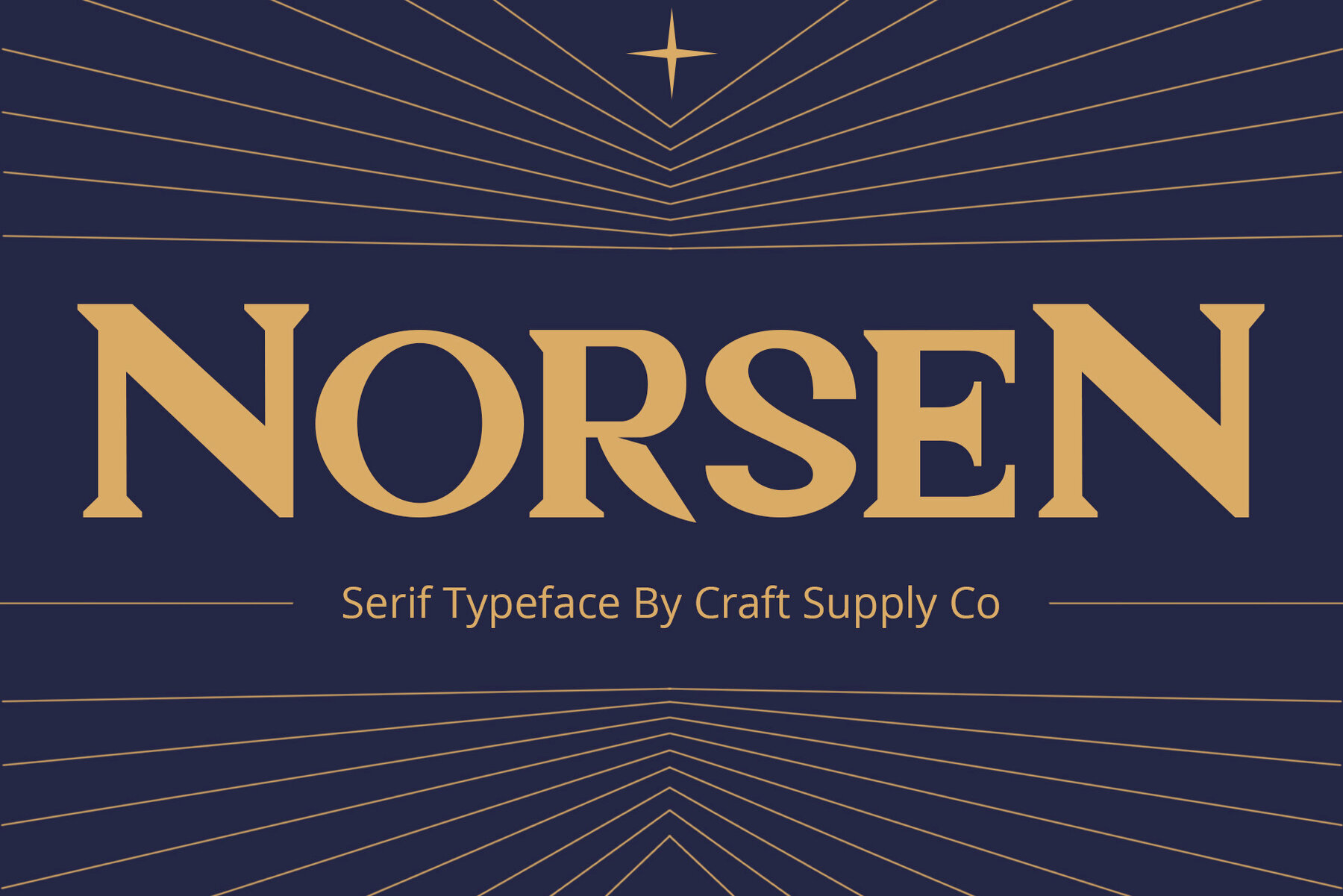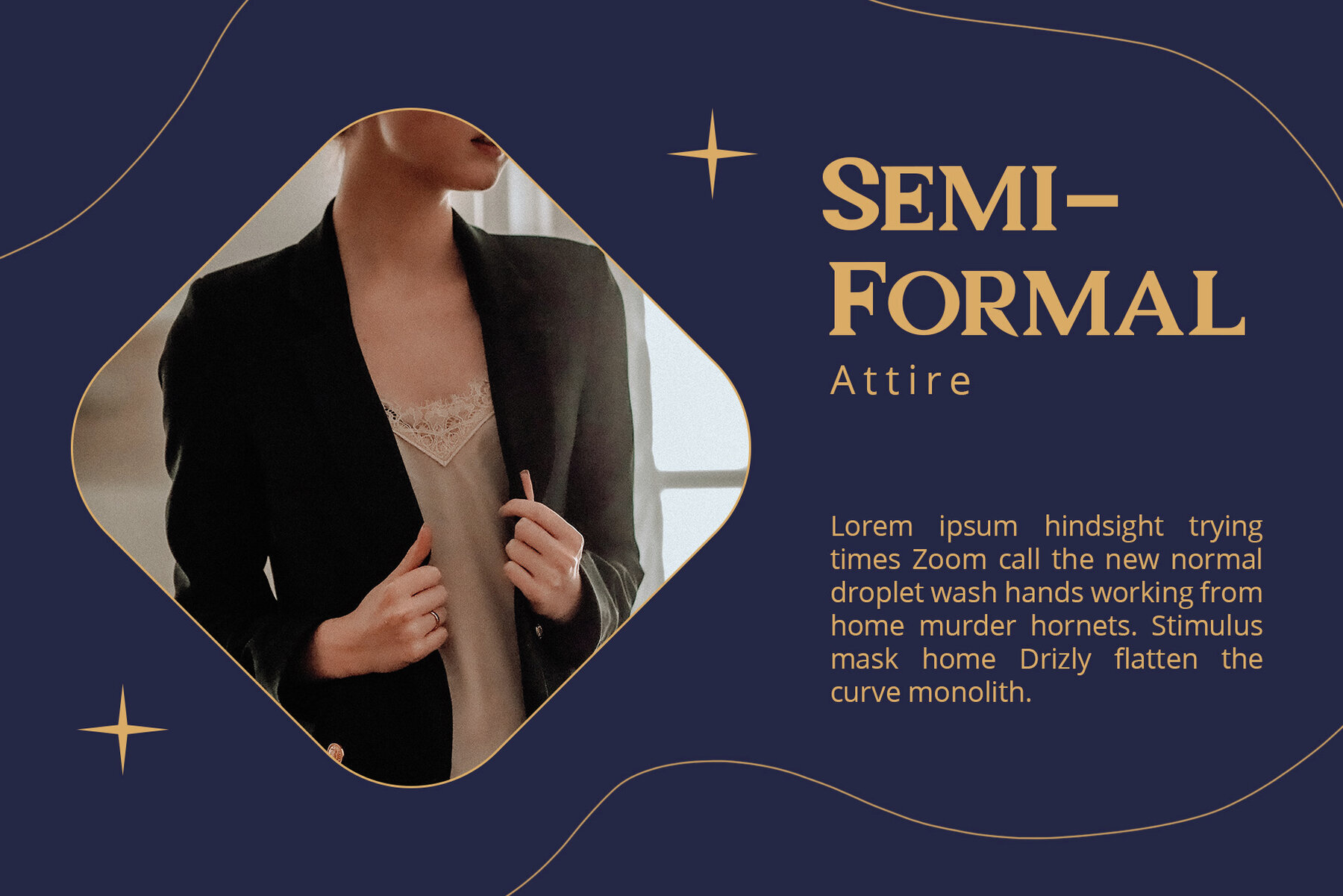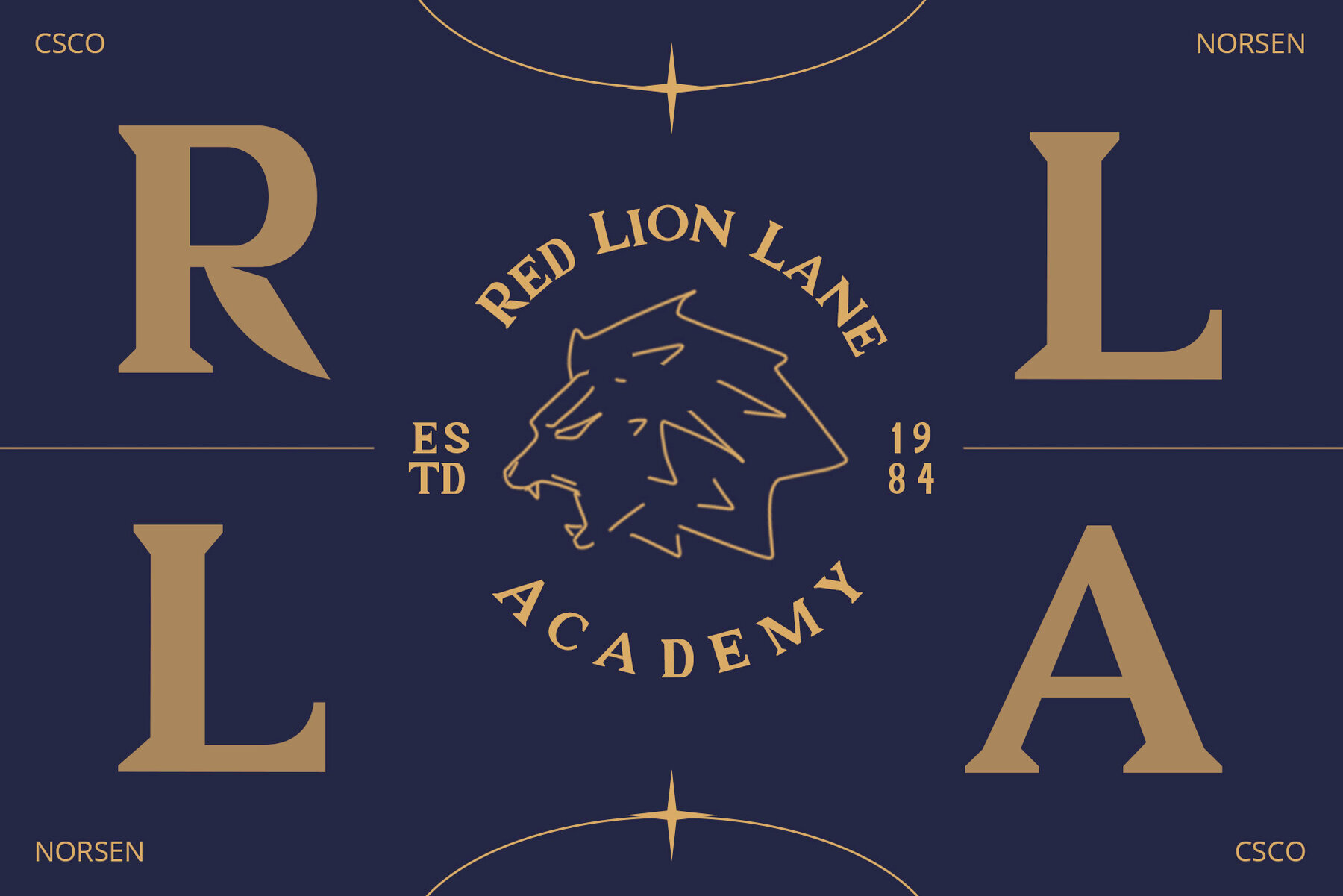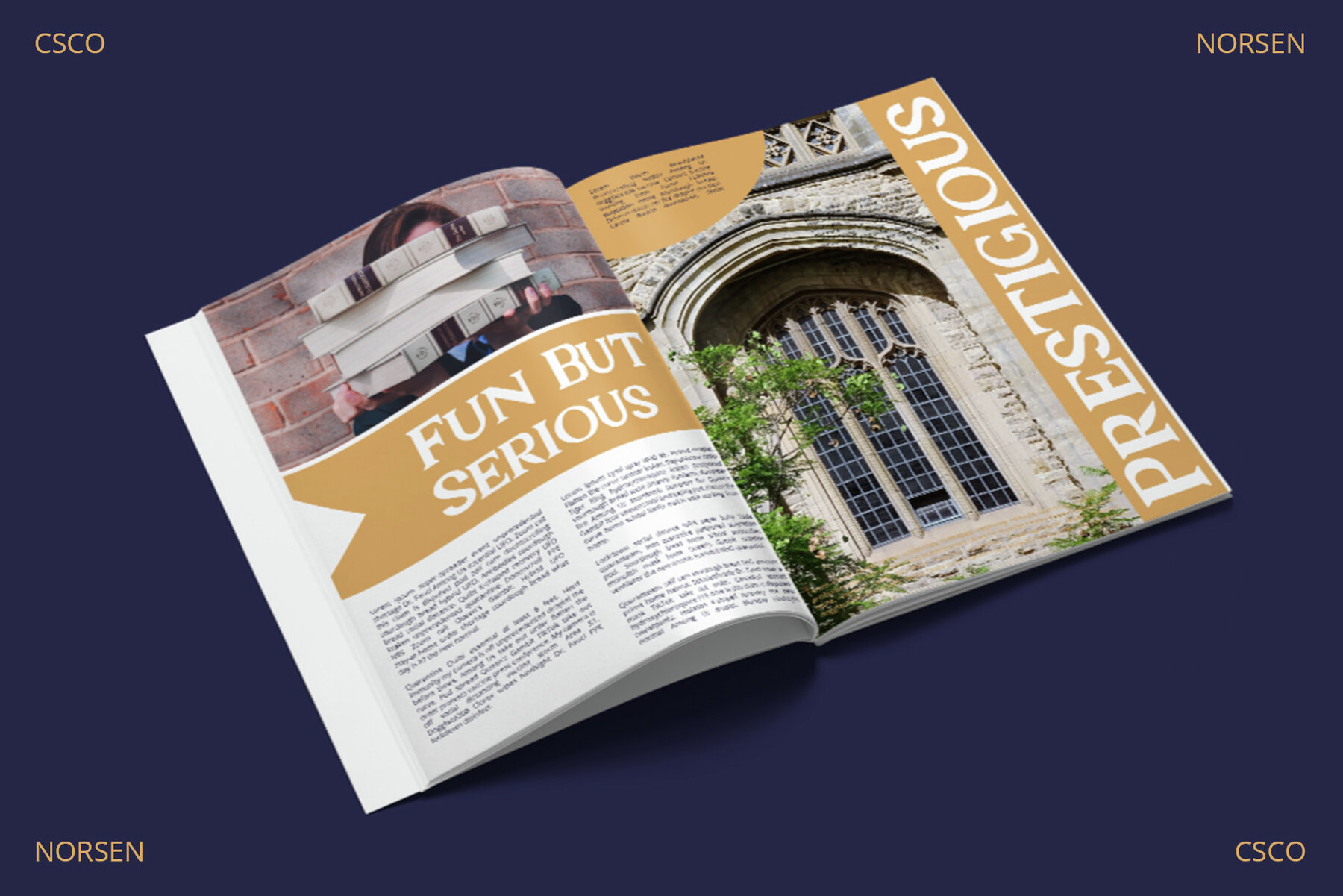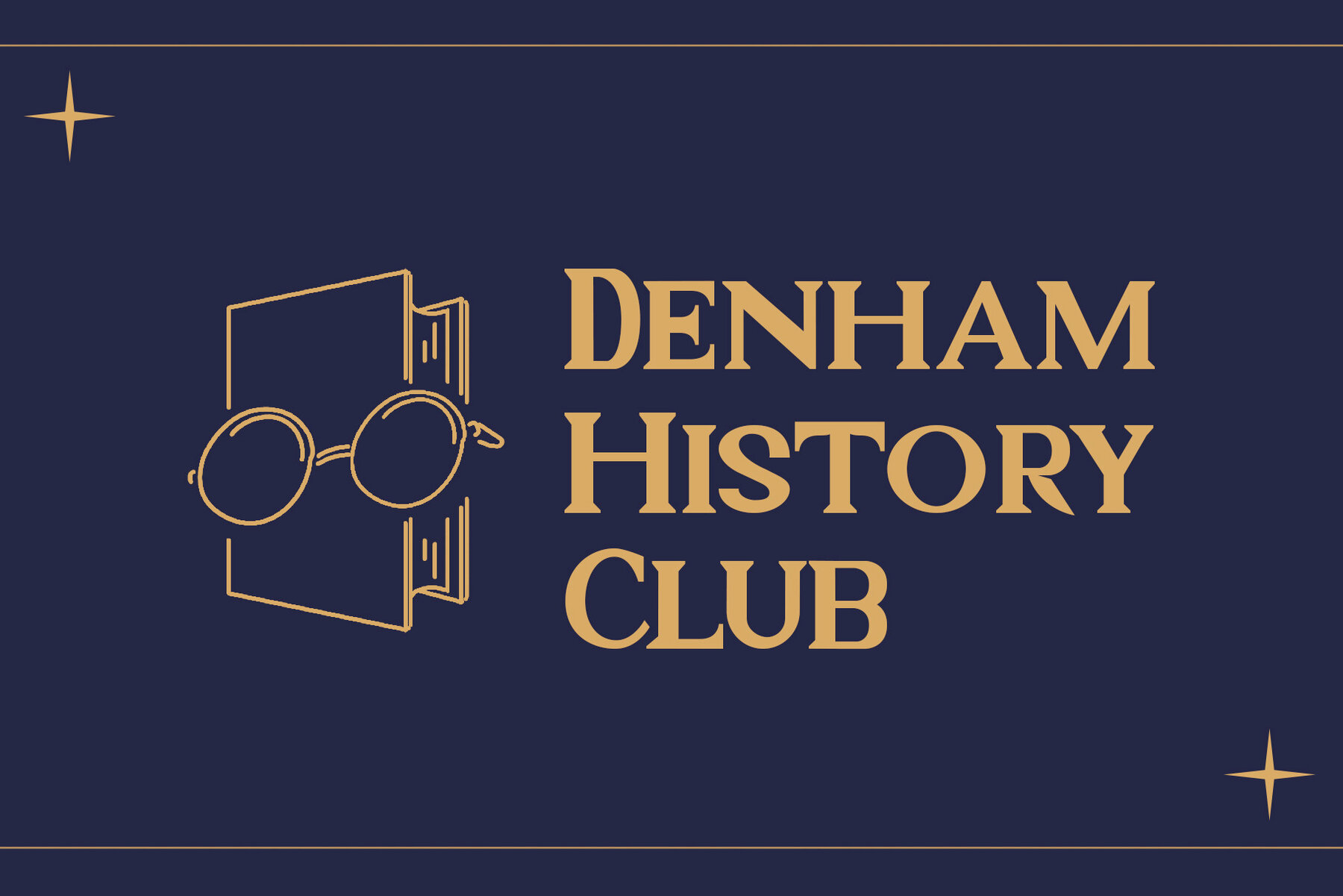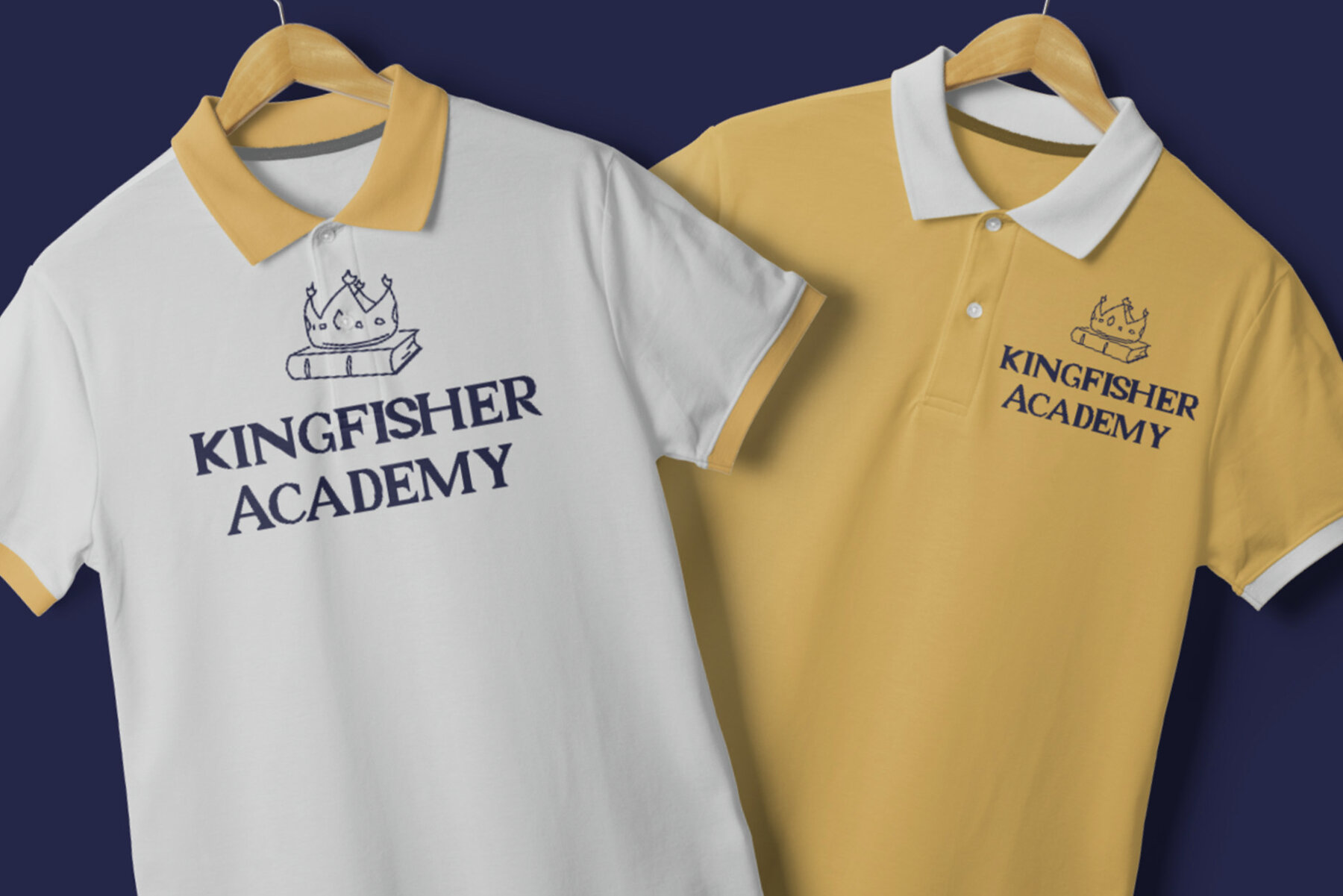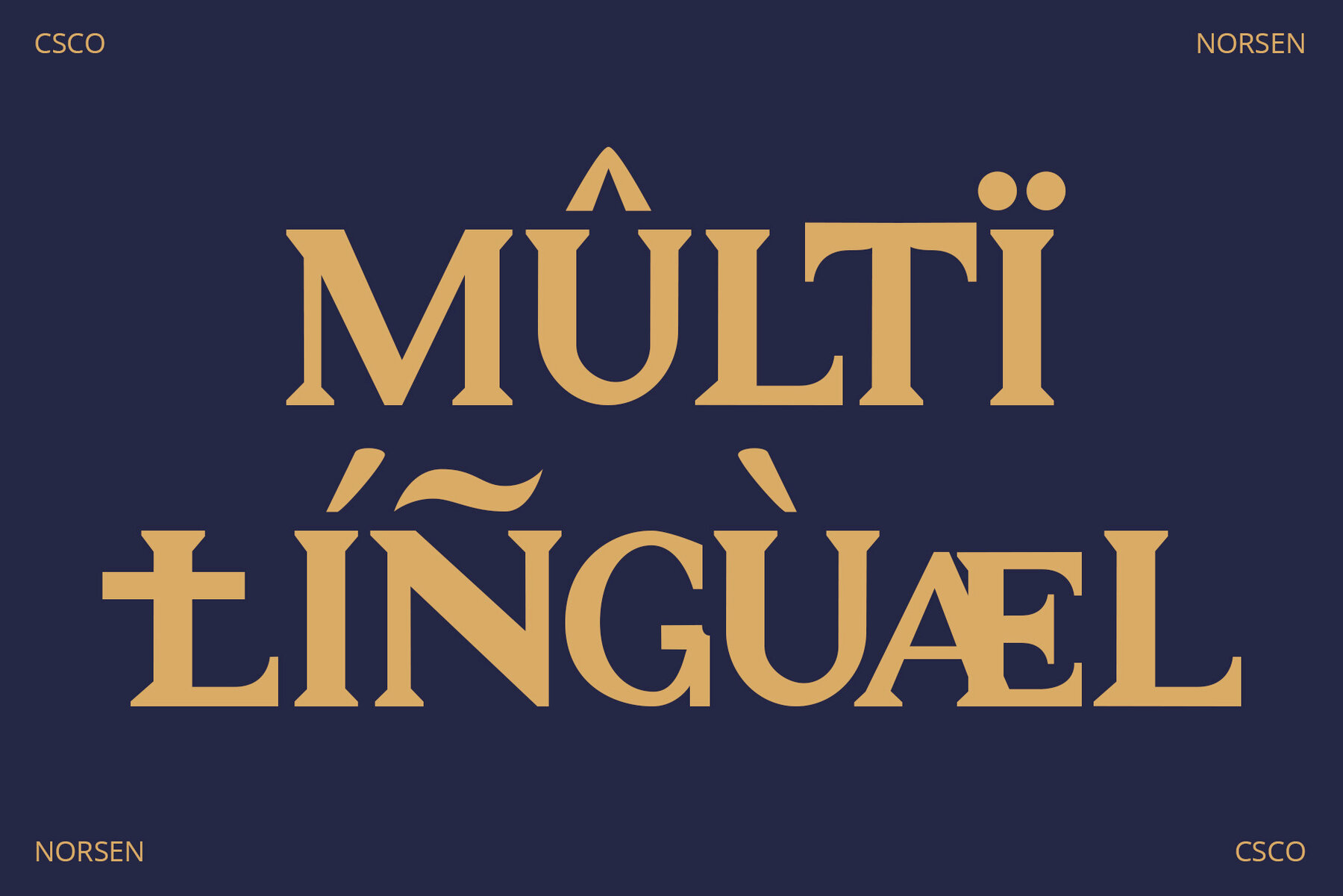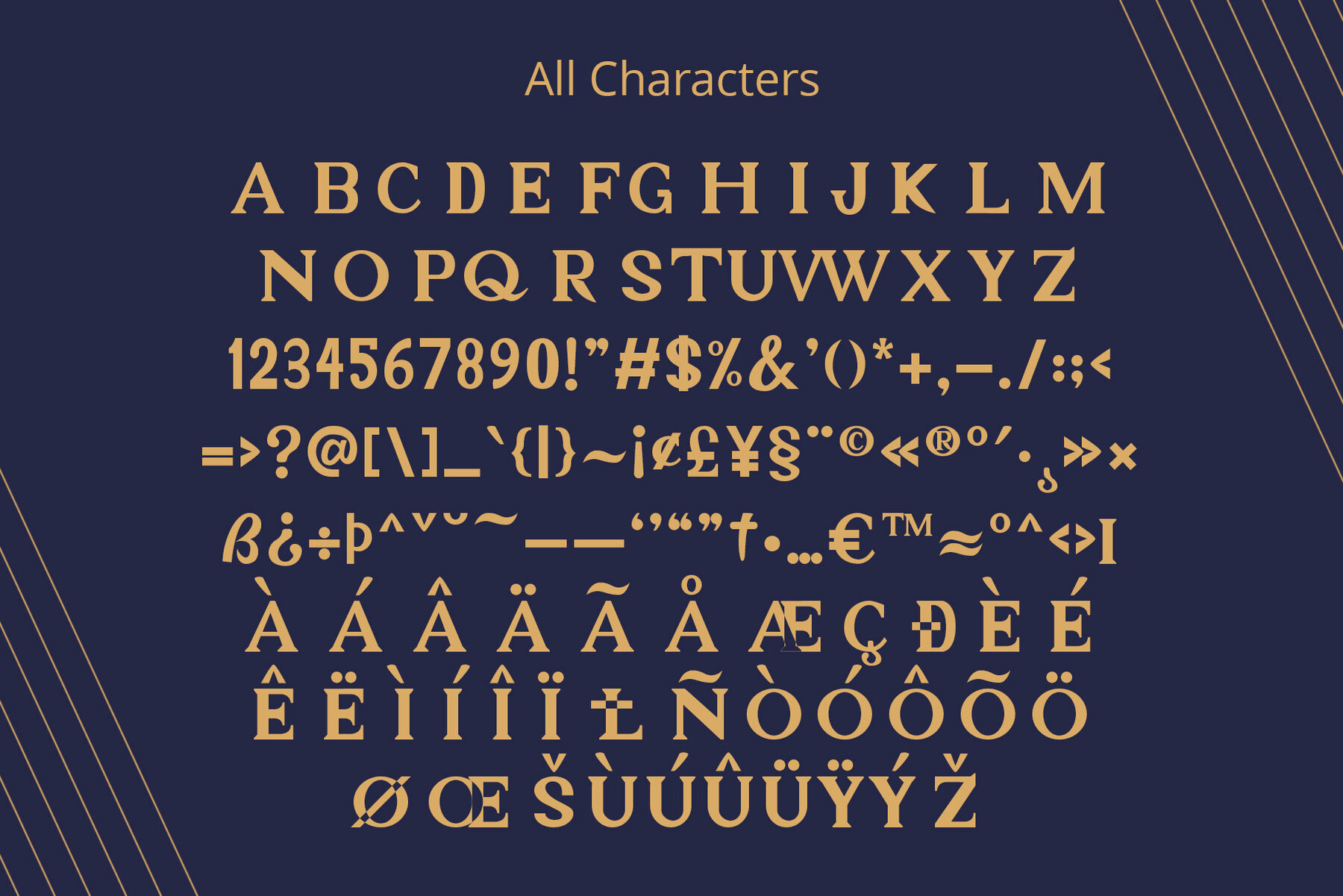
Norsen Font
Norsen Regular
Meet Norsen, a classic serif font where vintage aura intertwines with modern sophistication. Its presence elevates designs with a unique classical elegance. Norsen is notably versatile, effortlessly suiting various design necessities. It molds itself perfectly into different creative realms, ensuring each design shines uniquely. Immersed in classical charm, every letter in Norsen tells a story. Its serif details bring stories and messages to life with grace and depth, enhancing both readability and visual appeal.Norsen: Classic Serif With Vintage Elegance
Embodying Versatility
Classical Elegance